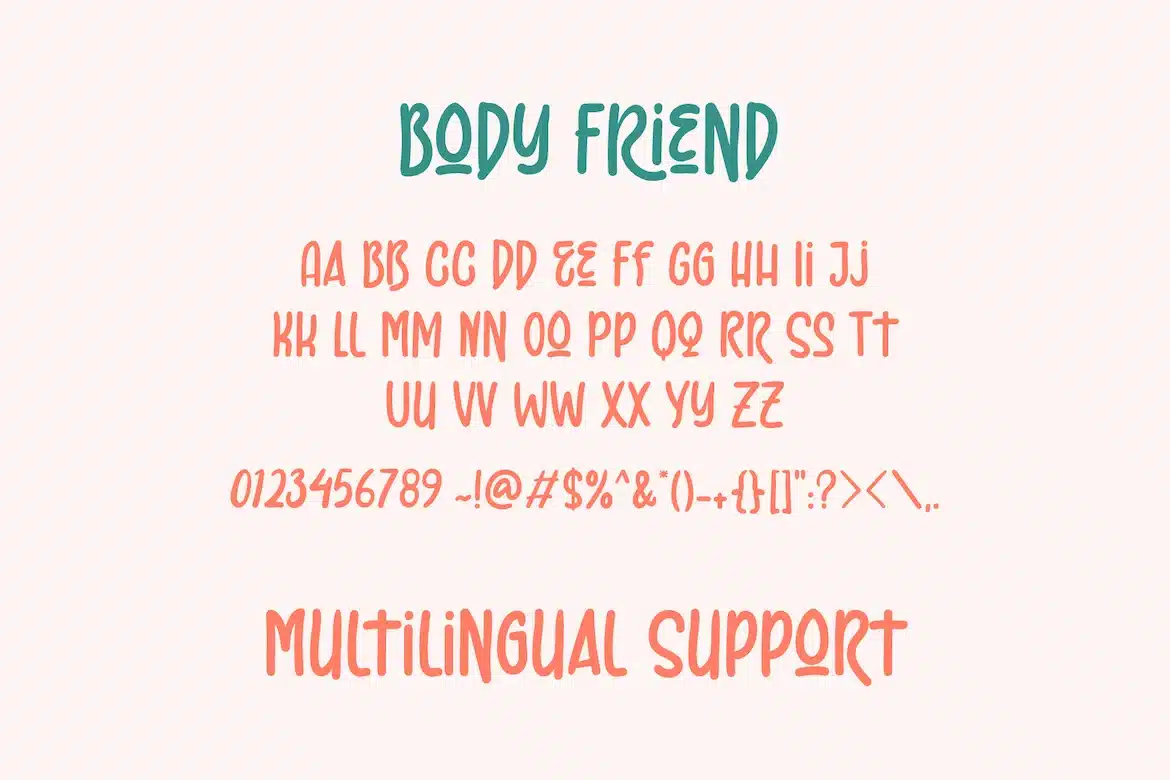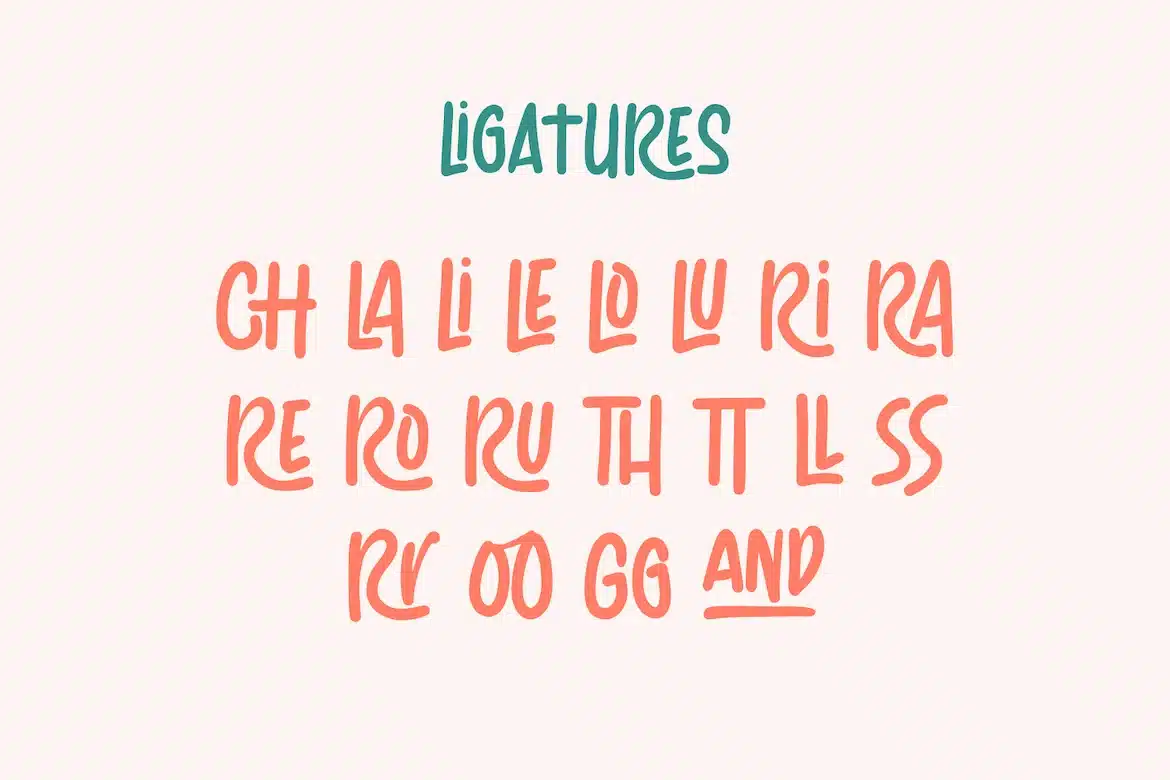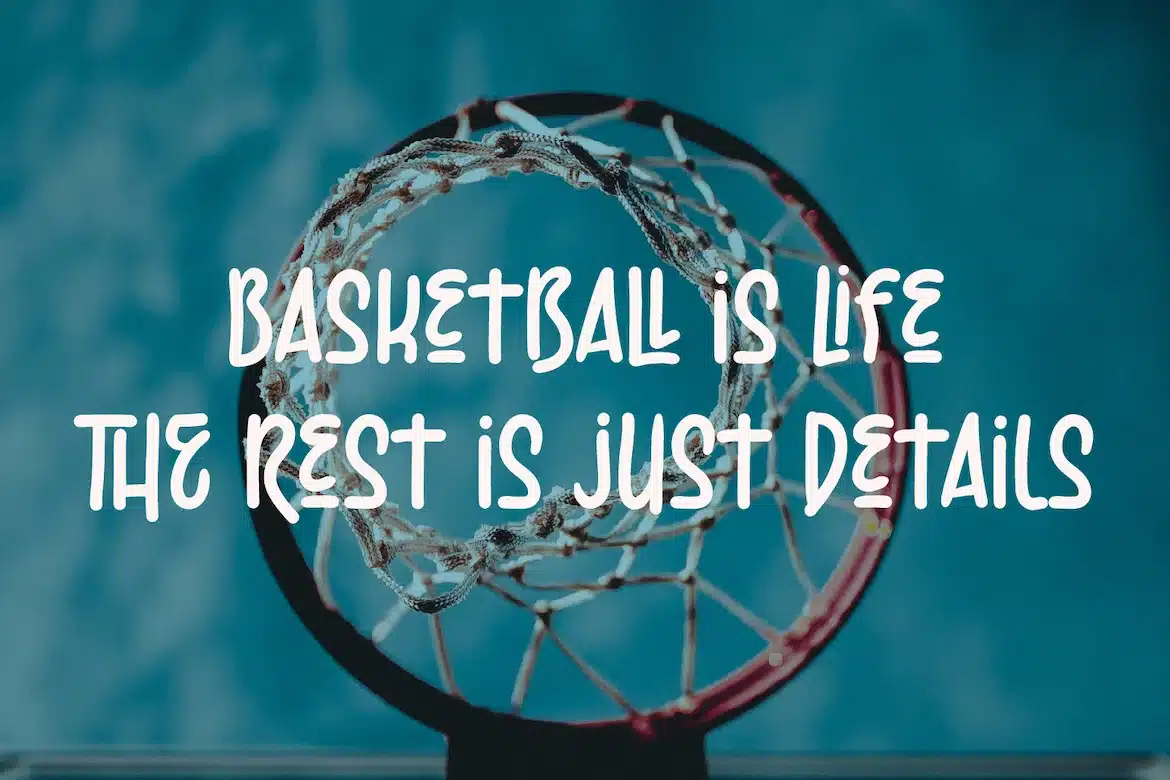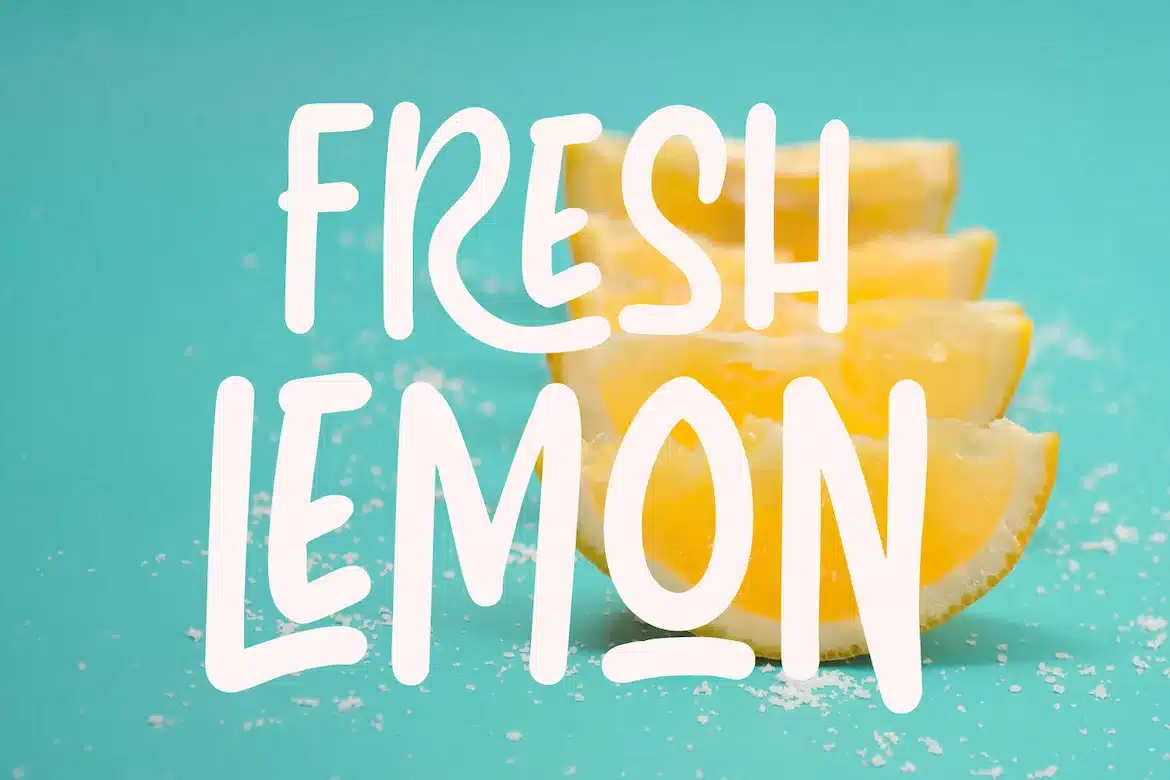
Body Friend – Clean Display Typeface for Logos Font
Body Friend is a clean display typeface designed to elevate branding and logo design. With its sharp structure and modern simplicity, it works perfectly in bold identity systems, high-end packaging, editorial titles, and digital headers.
Its professional yet approachable style helps create strong visual impressions.
Key Features:
- Clean and minimal display typeface
- Designed for logos and branding use
- Sharp lines with balanced proportions
- Ideal for modern visual identities
- Uppercase & lowercase letters
- Numerals and punctuation
Let your brand speak confidently with Body Friend.